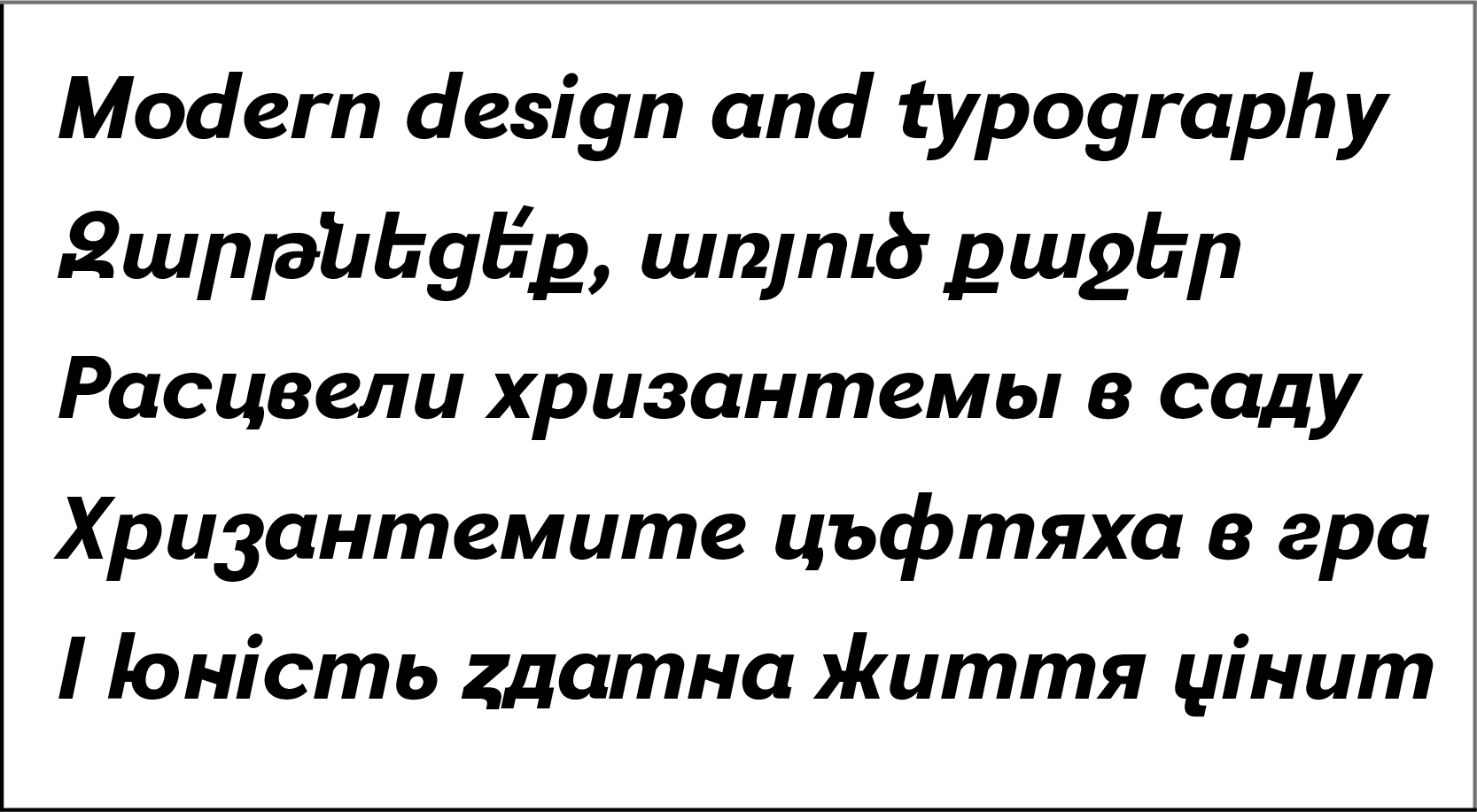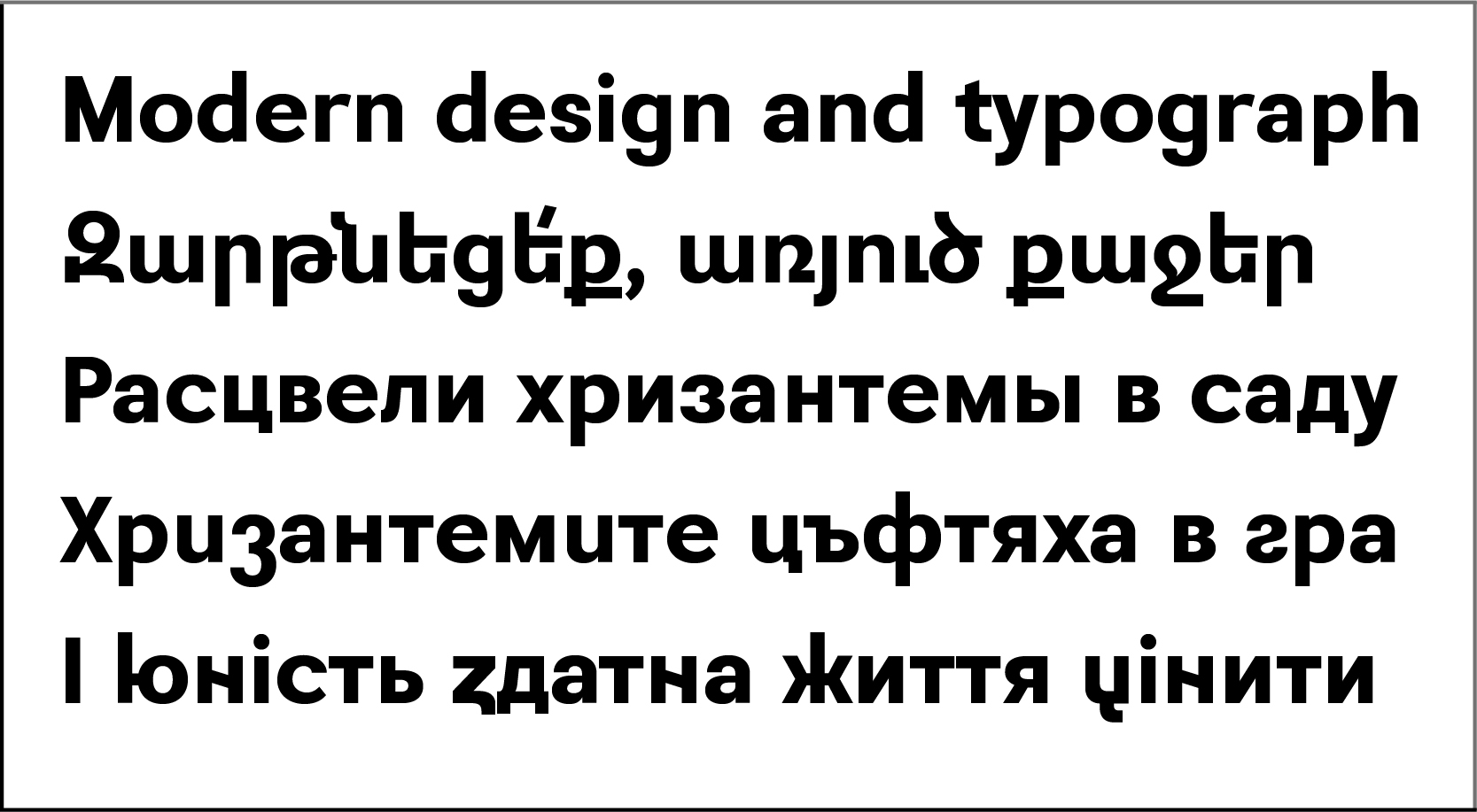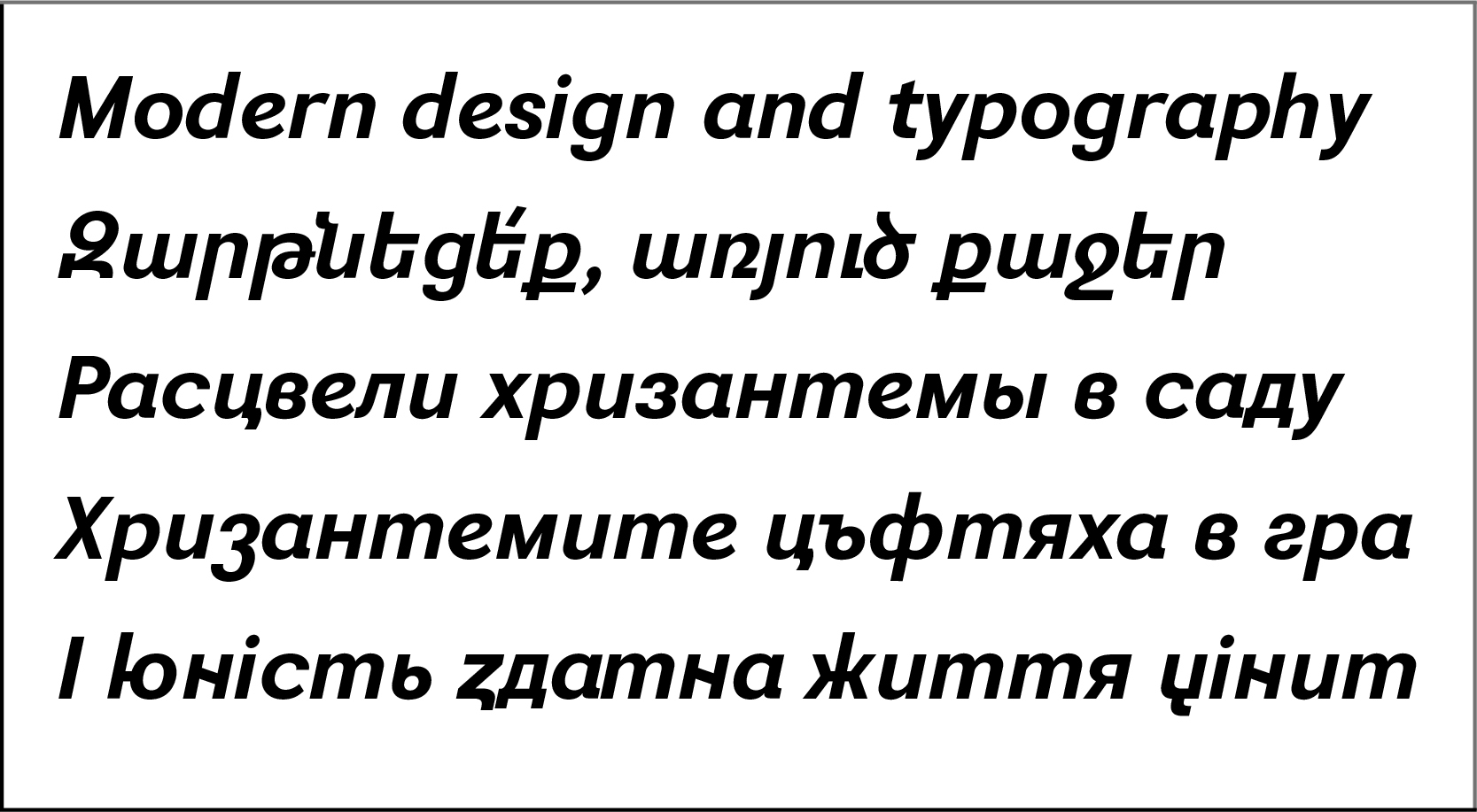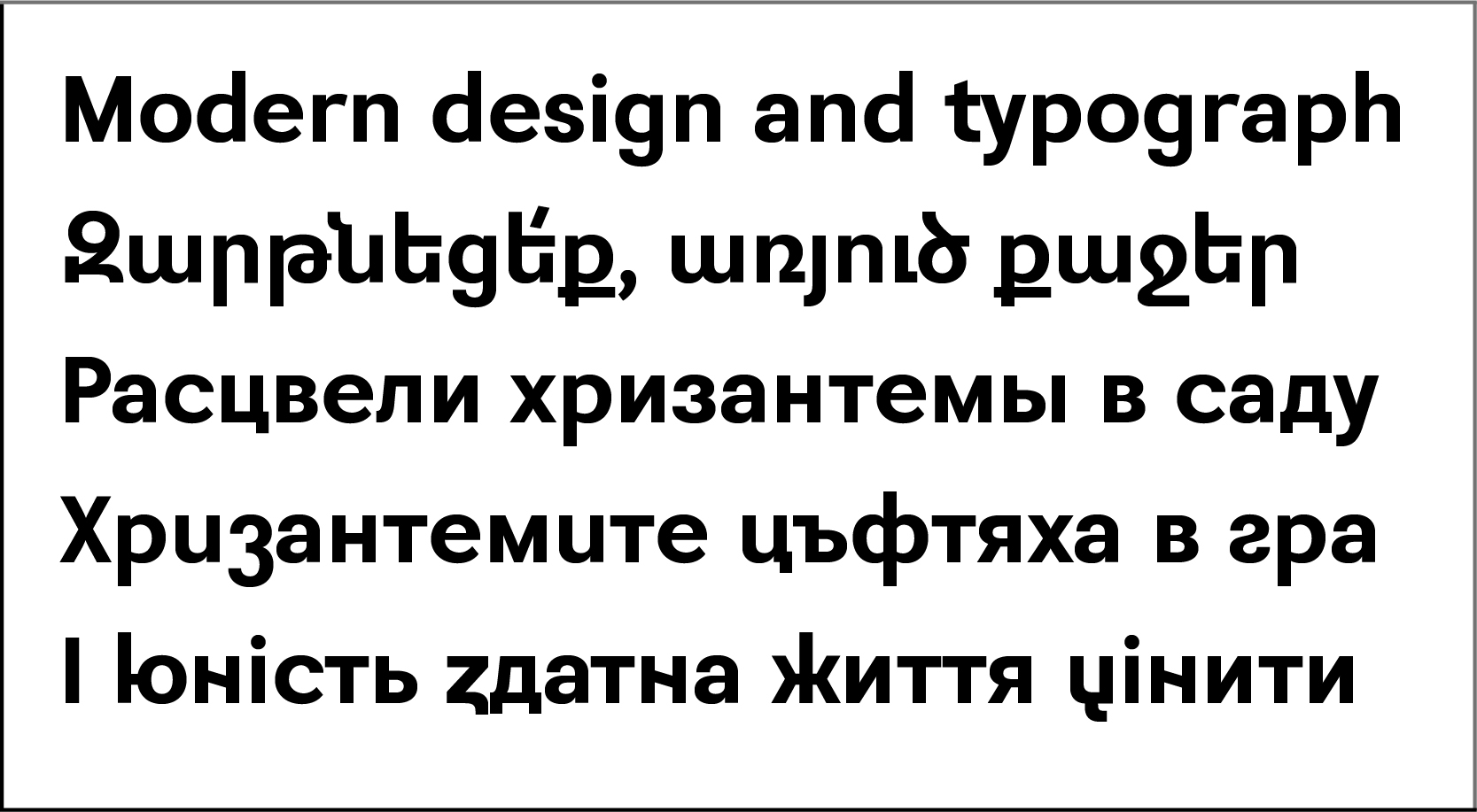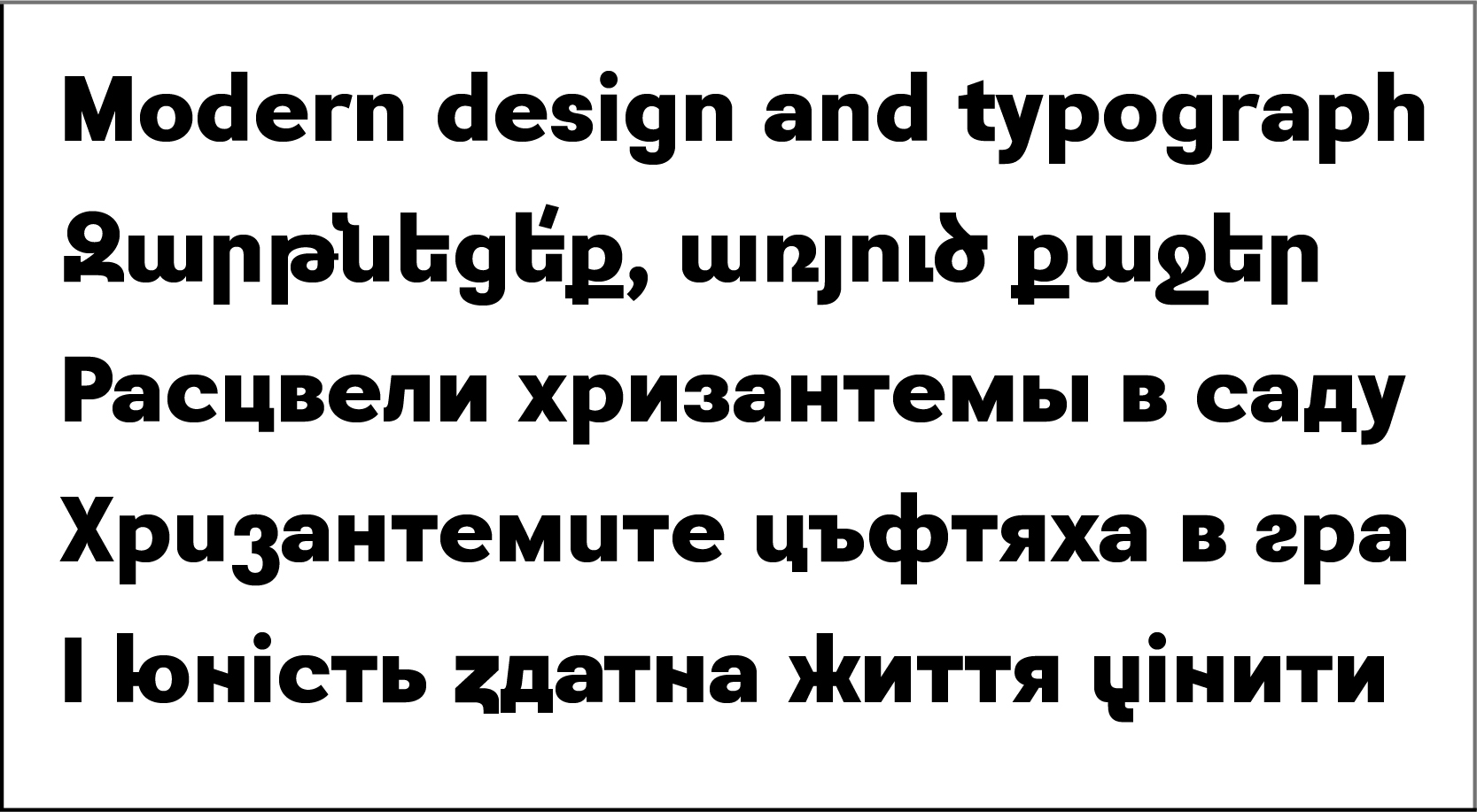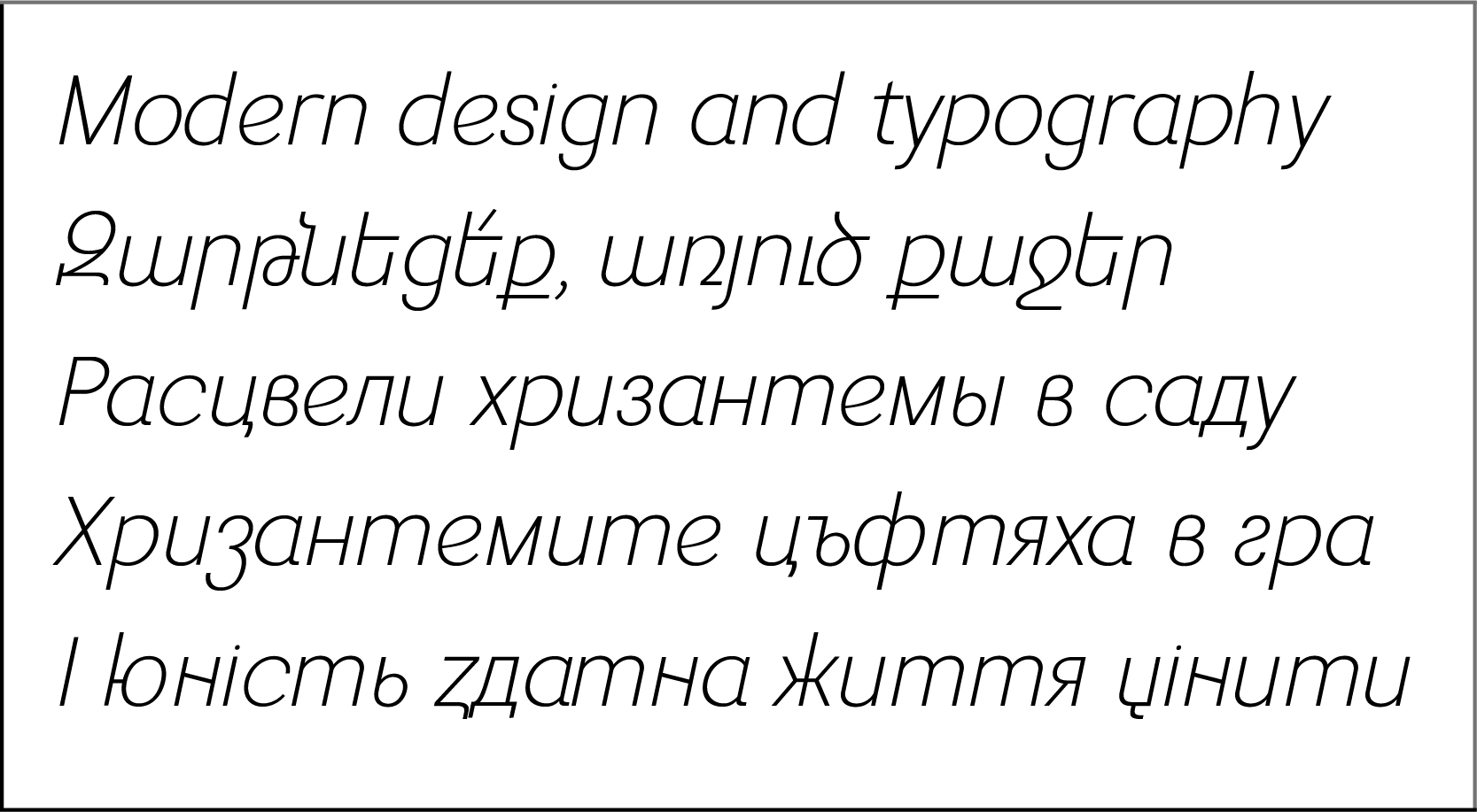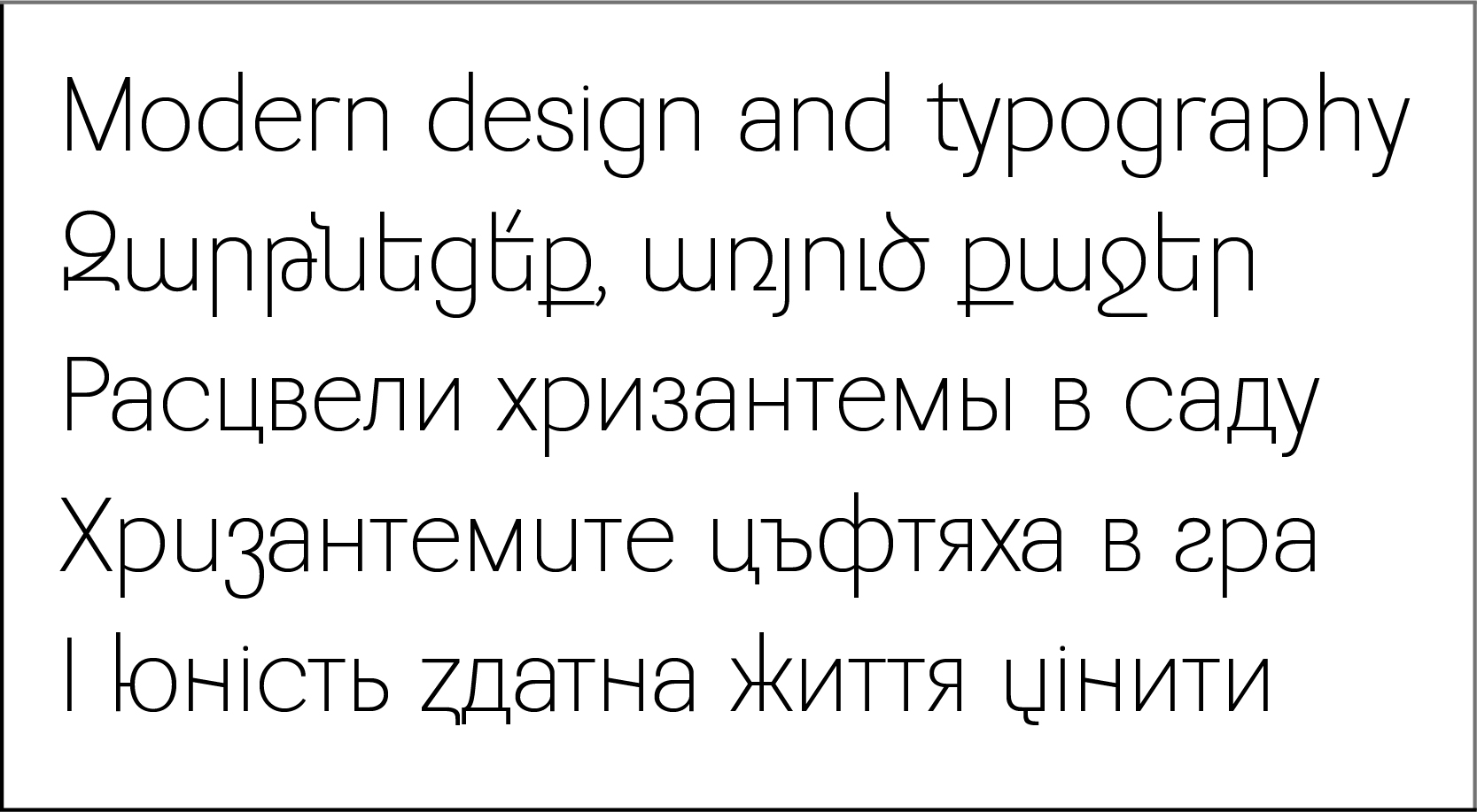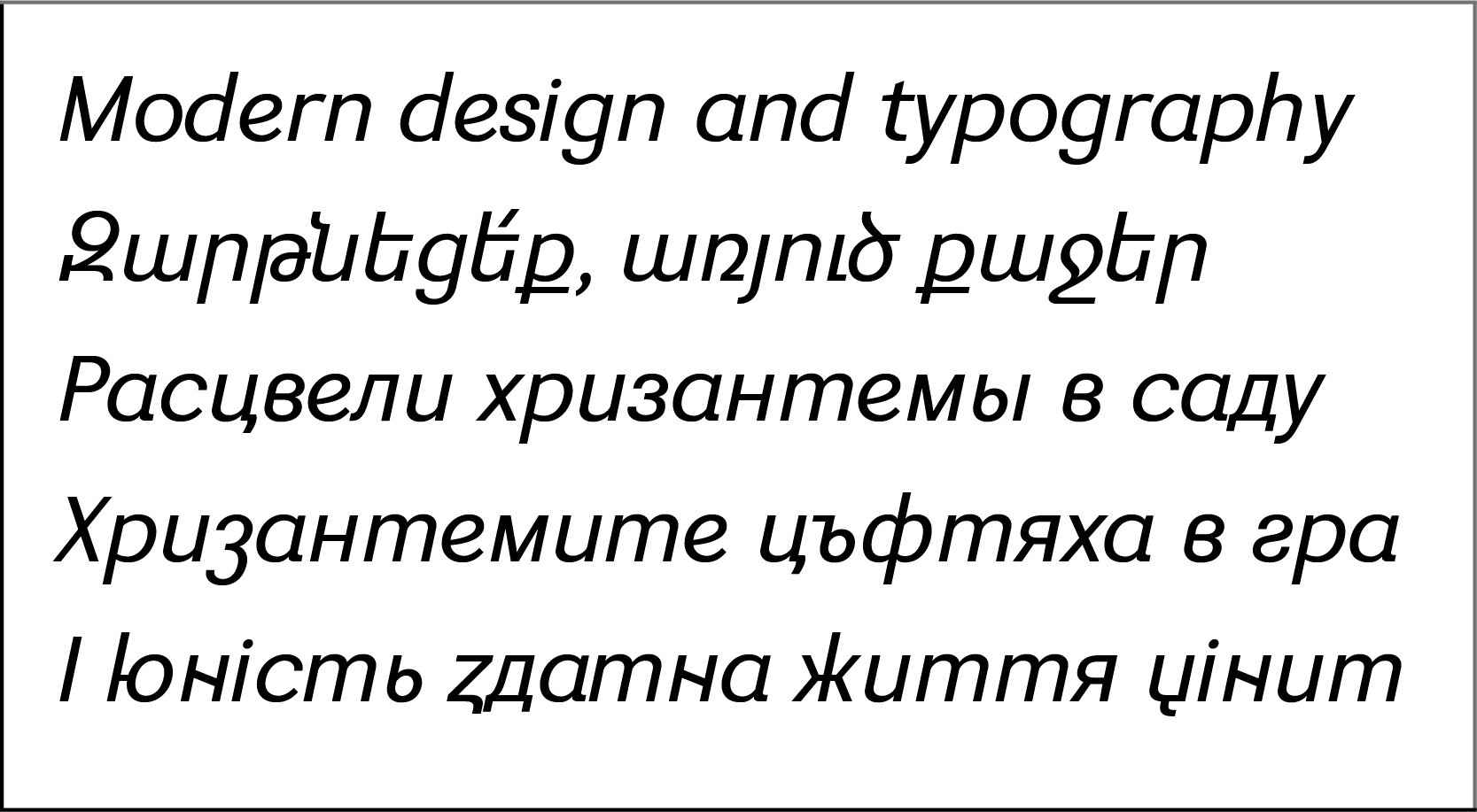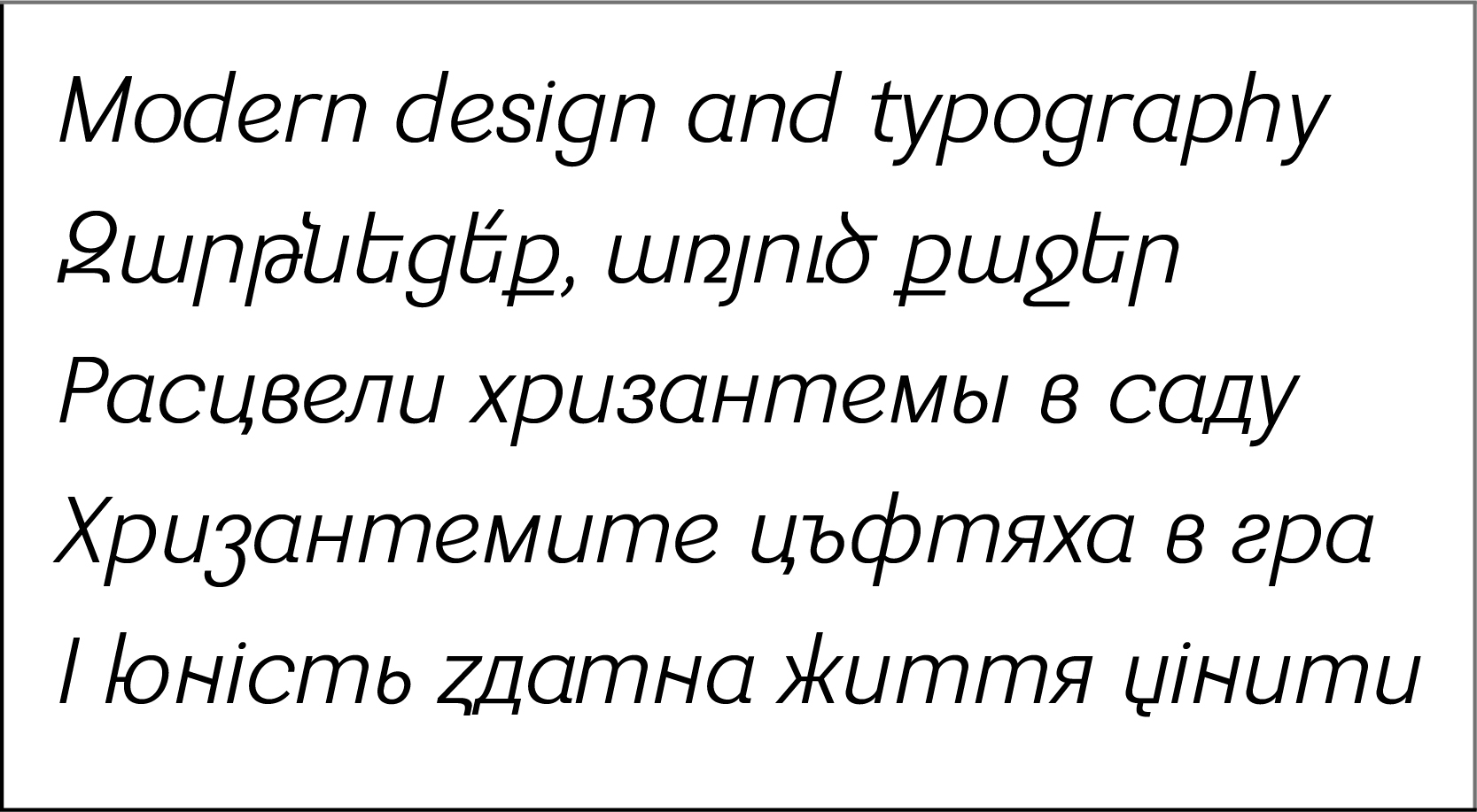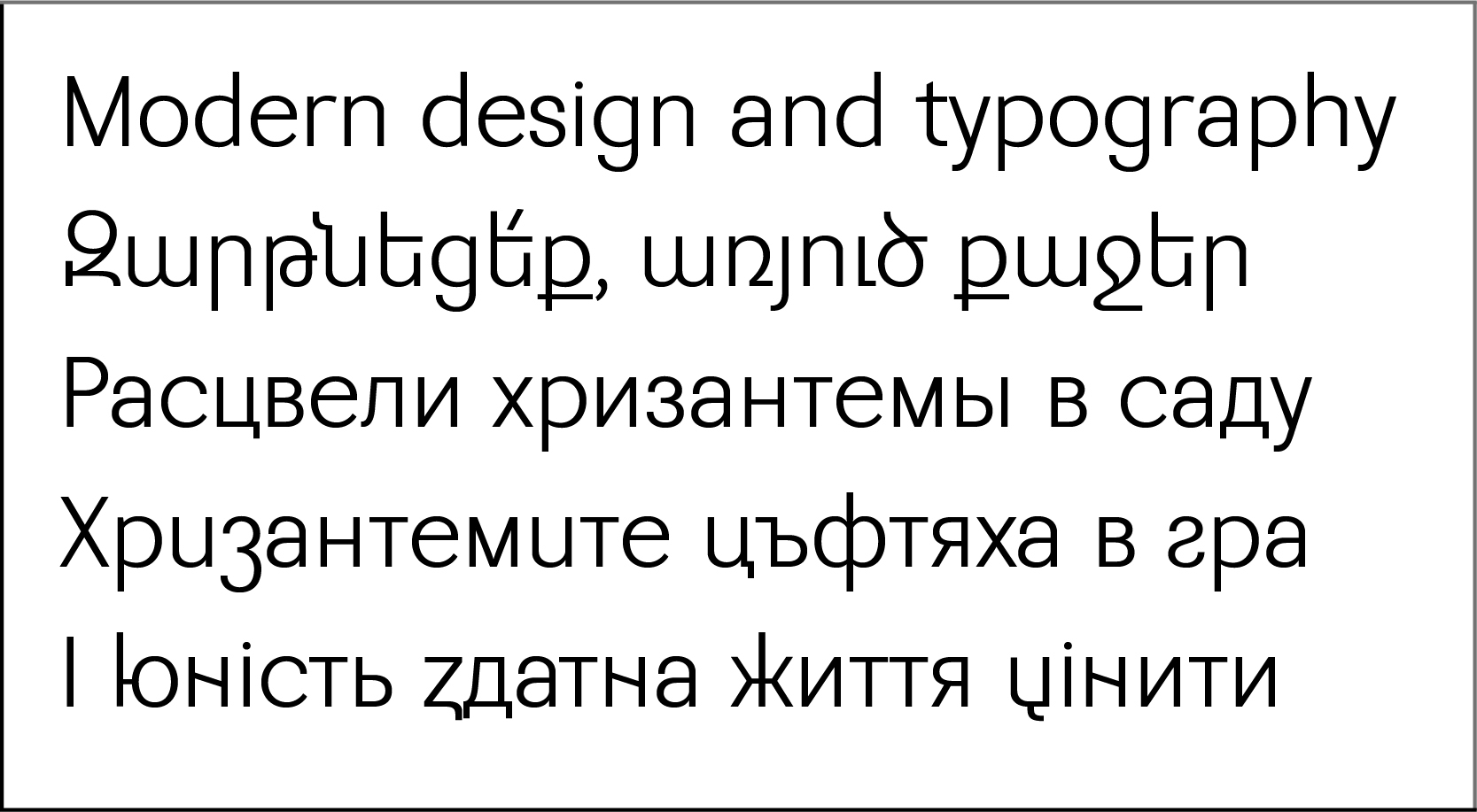
Edik Ghabuzyan, Sans-Serif Typefaces
GHEA Granshan
Design date: 2020
The font family includes Armenian, Latin Pro, Greek and Cyrillic (Bulgarian and Ukrainian included) alphabet systems.
The font can be used as a text and title font.